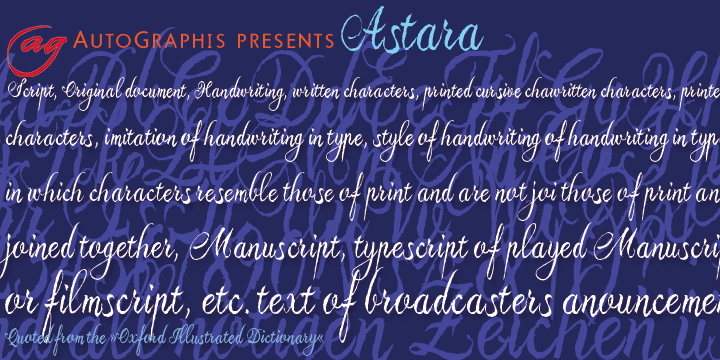
• Astara
Astara is a very upright swinging script, that works best in short headlines. I like it when the lines overlap, letters flowing into each other.